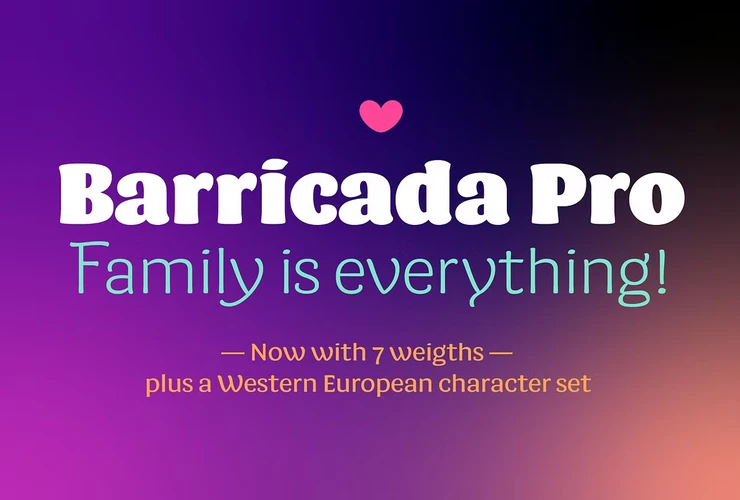
Barricada Pro: A Bold and Versatile Typeface for Modern Design
Barricada Pro, designed by the talented Elí Castellanos, is a dynamic typeface that commands attention with its bold, loud voice. This typeface is perfect for designers seeking a powerful, yet playful font that can stand out in any project. With its solid structure, curved serifs, and unique swashes, Barricada Pro offers a striking blend of strength and softness, making it ideal for a wide range of design applications.
What Makes Barricada Pro Stand Out?
Barricada Pro has been a favorite among designers worldwide for over fifteen years, and it has recently been expanded and refined to meet modern design needs. This typeface now includes seven static weights and a variable file, offering unmatched versatility. Whether you’re working on branding, packaging, or any design project that requires both impact and legibility, Barricada Pro delivers a fresh and solid text presentation.
Here’s why Barricada Pro is an excellent choice for your next project:
Wide Range of Weights: With options ranging from Light to Heavy, Barricada Pro allows designers to experiment with different levels of emphasis and create a cohesive visual hierarchy in their work.
Versatility in Design: The variable file and multiple weights make Barricada Pro adaptable to various design needs, from bold headlines to subtle body text.
Global Appeal: After years of global use, Barricada Pro has proven itself in diverse design contexts, making it a reliable choice for any designer looking to make a statement.
Ideal Uses for Barricada Pro
Branding: Create memorable and impactful brand identities with Barricada Pro’s bold and unique design.
Packaging: Ensure that your packaging stands out on the shelf with the strong and legible text that Barricada Pro provides.
Editorial Design: Add a fresh and solid look to your editorial layouts with the versatile weights of Barricada Pro.
Discover the Barricada Pro typeface and elevate your design projects with a typeface that combines strength, playfulness, and global appeal.